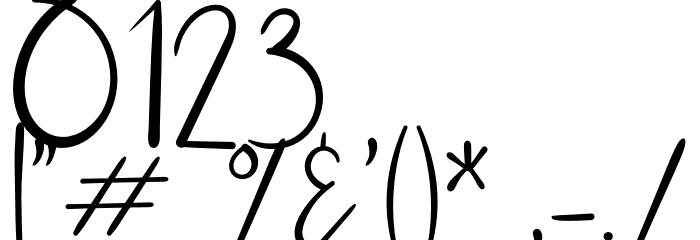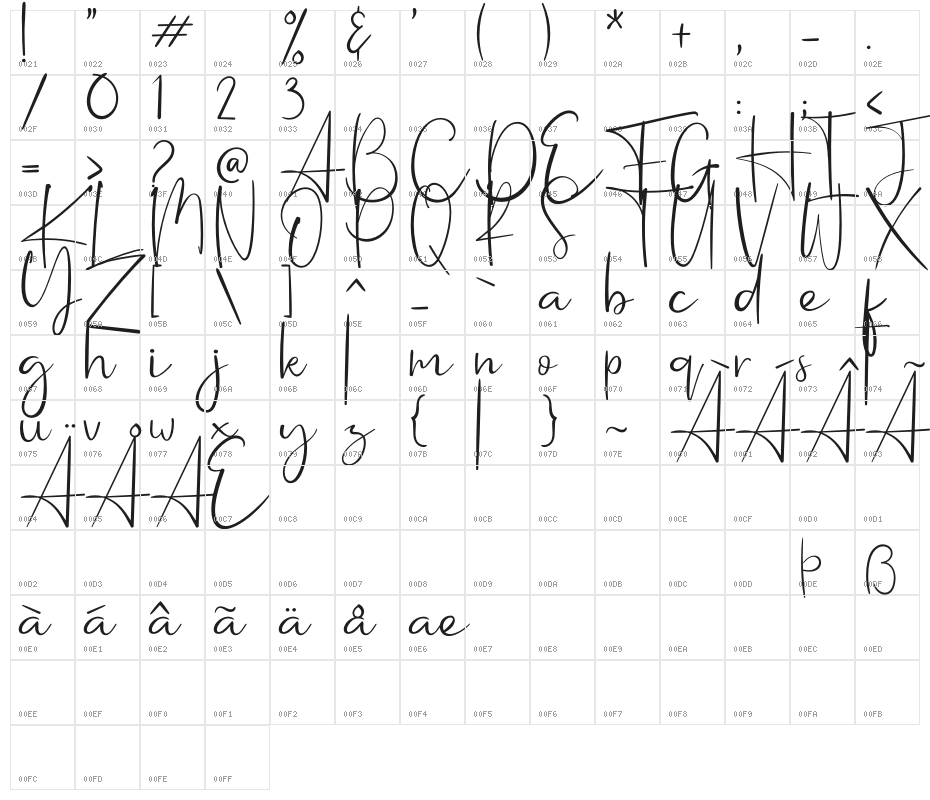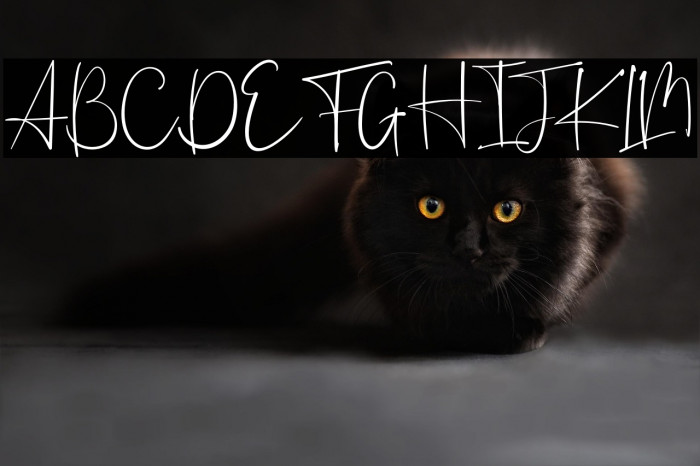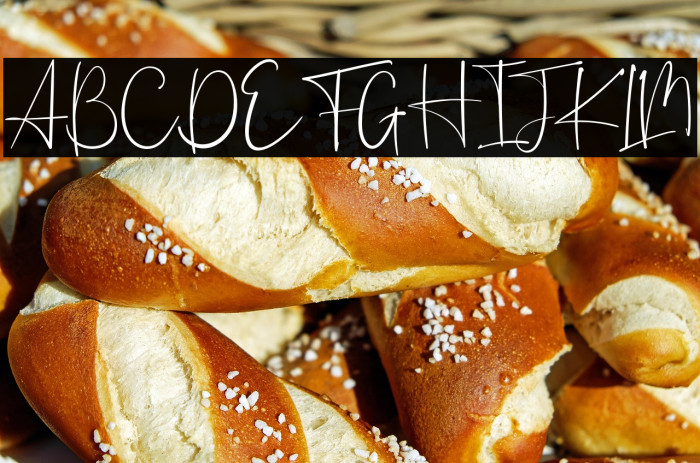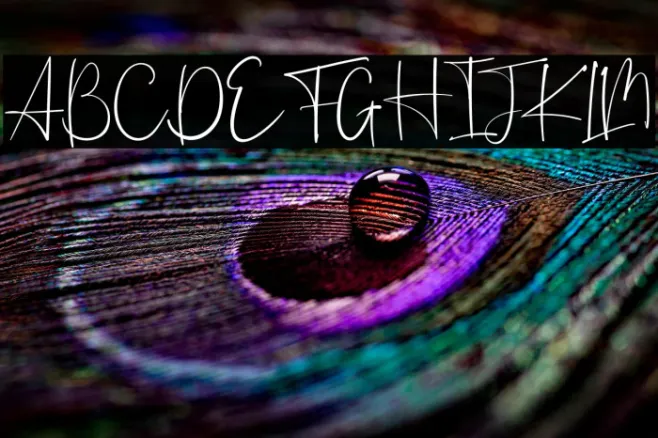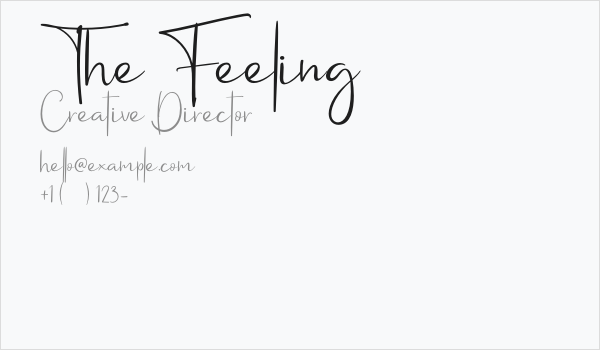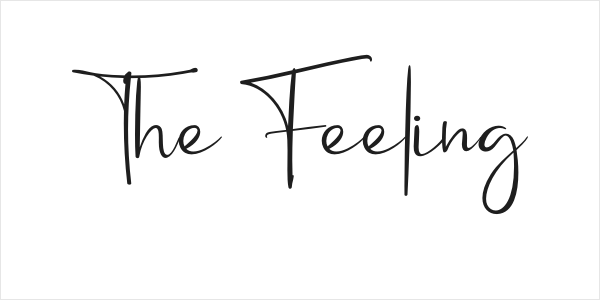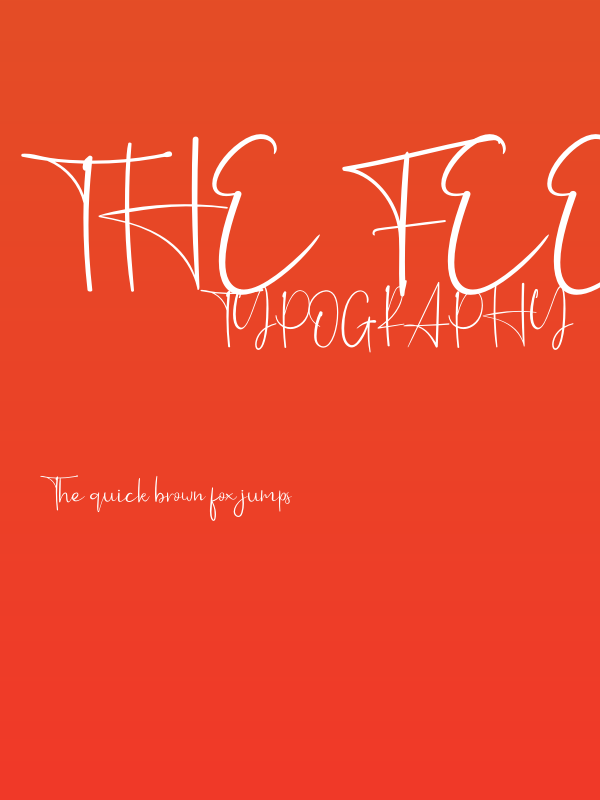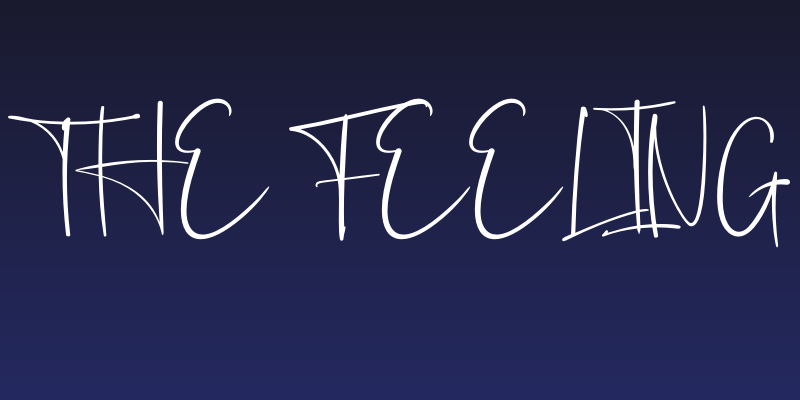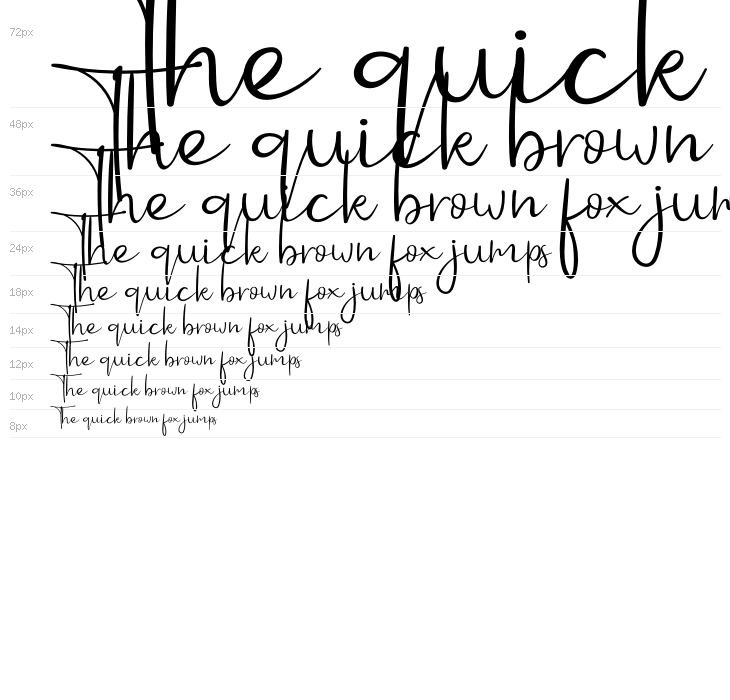
The Feeling Font
The Feeling Description
This font features a playful and expressive handwritten style, characterized by its tall, narrow letters and dynamic strokes. The uppercase letters exhibit a whimsical flair with uneven baselines and varying heights, adding a sense of movement and energy. The lowercase letters maintain a consistent flow, with elongated ascenders and descenders that enhance its artistic appeal. Numbers and special characters follow the same lively aesthetic, making the font versatile for creative projects. Its unique style is perfect for adding a personal touch to designs, capturing attention with its distinctive and artistic appearance.